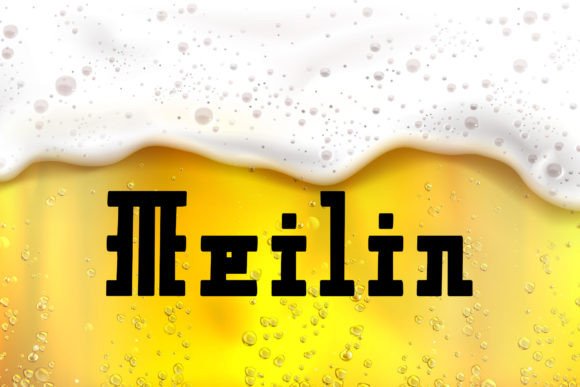
Embark on a typographic journey with Meilin Font, a captivating display font crafted by denestudios, ready to transform your designs into masterpieces. Its modern and stylish aura is a breath of fresh air, leaving your audience captivated by its unique charm.
Meilin's natural and unique style effortlessly blends into a diverse range of design projects, from logos and branding to social media graphics and website headers. It's the perfect font to make a statement, leaving a lasting impression on your audience. Let your creativity soar as you explore the endless possibilities that Meilin presents.
With Meilin as your design companion, you'll find yourself reaching new heights of creativity. Its carefully crafted curves and striking lines add a touch of sophistication and elegance, making your designs stand out from the crowd. Unleash your imagination and witness how Meilin seamlessly integrates into your design vision, elevating it to new levels of excellence.